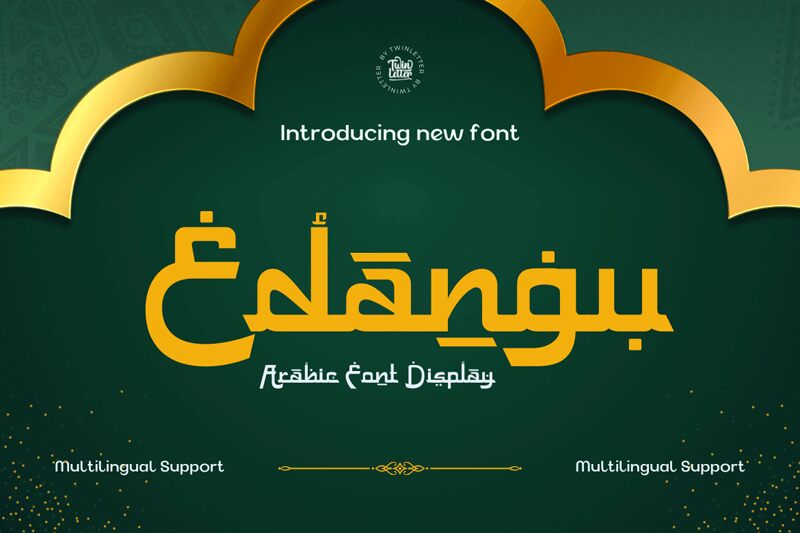
Edangu, the captivating creation by twinletter, transports you to distant lands with its foreign charm. This arabic faux font weaves an enchanting tale, evoking the essence of exotic cultures. Its expanded width adds a touch of grandeur and sophistication to any project.
Embrace Edangu's allure in your next branding endeavor, where it will bring a sense of mystique and elegance to travel magazines or luxury hotel brochures. Let this font lend an air of authenticity to historical fiction novels or spice up food packaging design for gourmet products.
Unleash your imagination with Edangu!